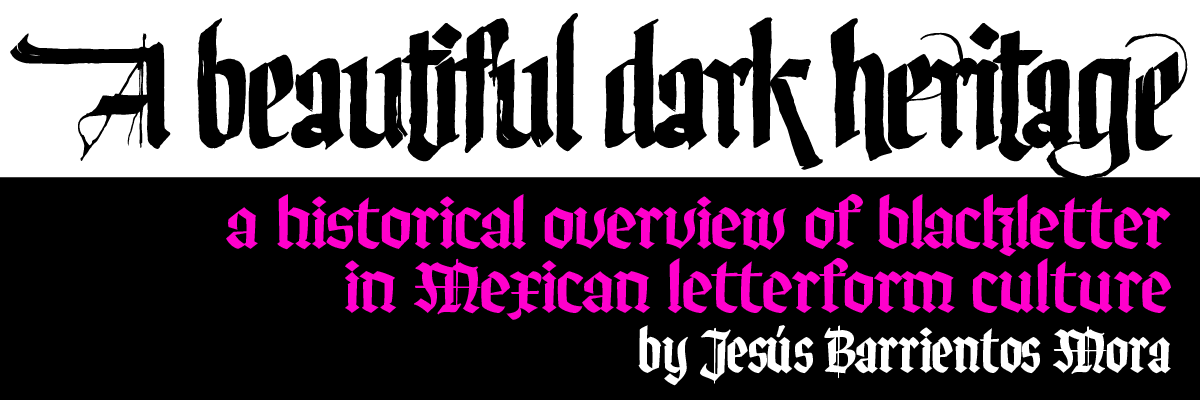
A beautiful dark heritage: a historical overview of blackletter in Mexican letterform culture
with Jesús Barrientos Mora
There is a constant presence of blackletter in the Mexican landscape that can be spotted everywhere from Tijuana down to Cozumel. In the shape of cholo graffiti, sign painting for birria taco spots, tequila ice cream, tattoo parlours, gravestone carving and a myriad of unapologetic cross-breed lettering displaying creative new styles of blackletter, becoming an essential part of México’s letterform culture.
This presentation will explore the (most probable) reasons behind how and why a mediaeval calligraphy style became so deep-rooted in México as a legacy spreading over 500 years.